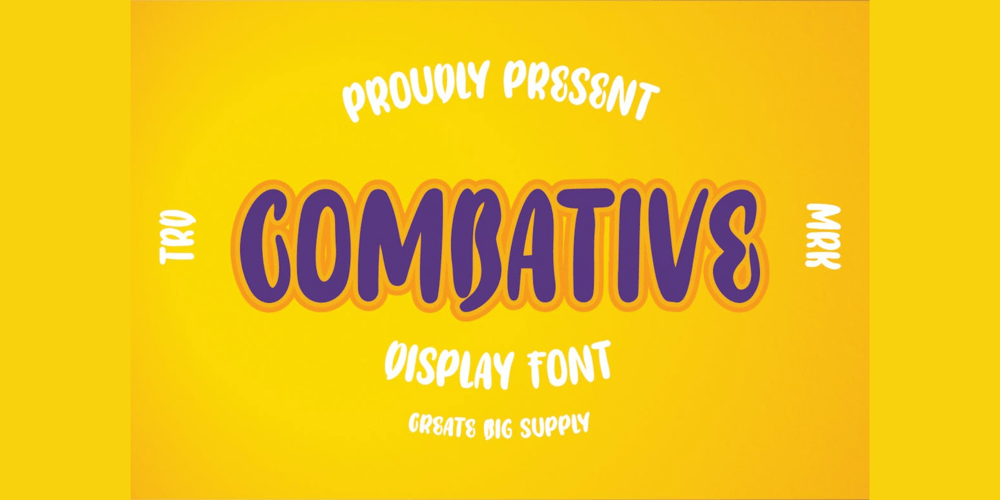
Combative
Combative font
Combative Font Family was designed by Irpan Maulana and published by Create Big Supply. Combative contains 1 styles and family package options. Combative is perfect for logos and various formal applications such as invitations, labels, magazines, books, greeting cards, packaging, fashion, stationery, novels, and advertising purposes.Combative’s unique style and versatility make it suitable for a wide range of design projects. Whether you’re looking to create a bold and impactful logo or add a touch of sophistication to your formal designs, Combative has you covered.With its uppercase and lowercase letterforms, Combative offers flexibility and creative freedom. The font also includes numbers, punctuation marks, and supports multiple languages, ensuring that you have all the necessary elements to express your ideas effectively.Combative features PUA Encoding, allowing easy access to additional characters and glyphs, further enhancing your design possibilities.Make a statement with Combative’s elegant and eye-catching style. Whether you’re working on branding, invitations, magazines, or any formal design project, this font will elevate your creations and leave a lasting impression.